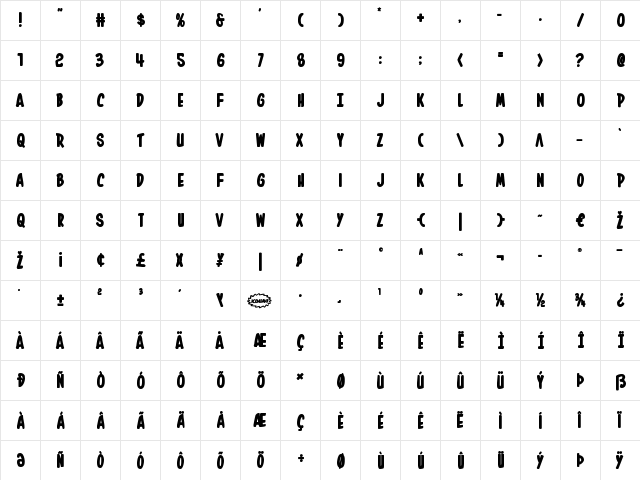
In-House Edition Bold Bold
Design Context for In-House Edition Bold Typeface
In-House Edition Bold offers clean, dependable letterforms without strong stylistic allegiance, making it a practical choice for designers who need flexibility. The heavy weight commands attention and anchors typographic hierarchies.